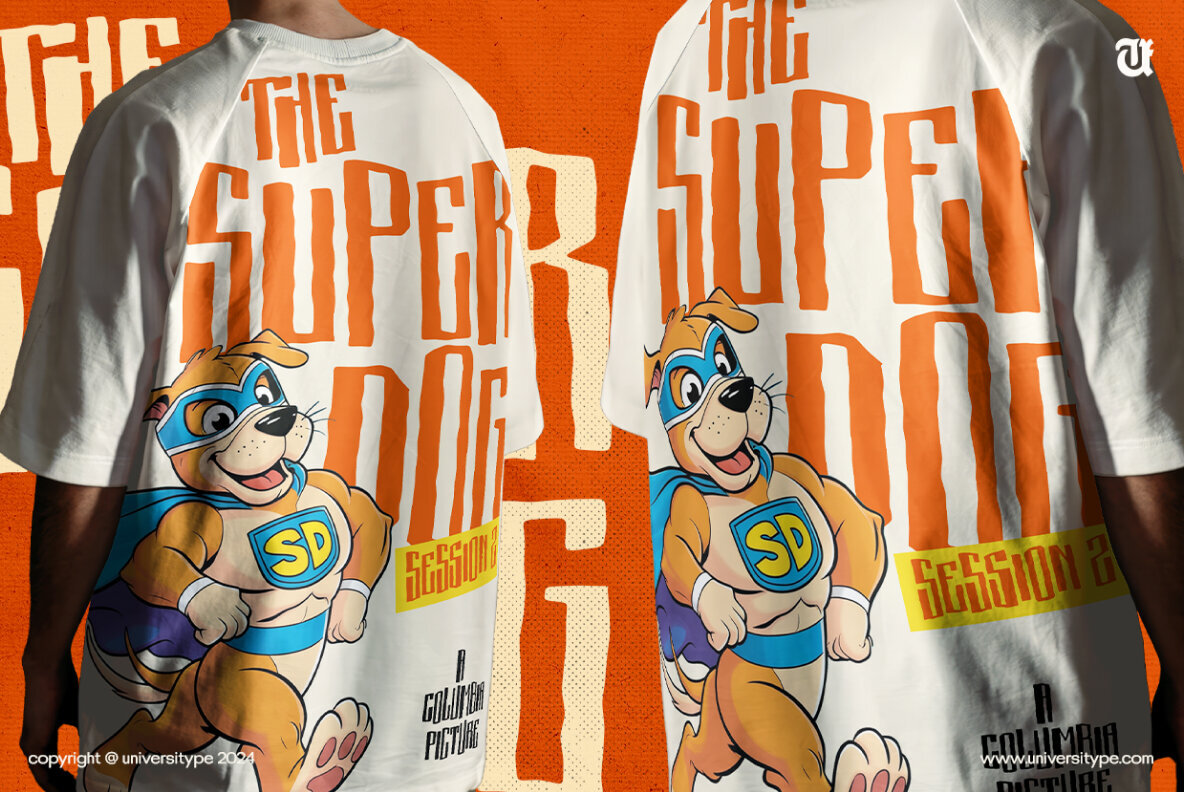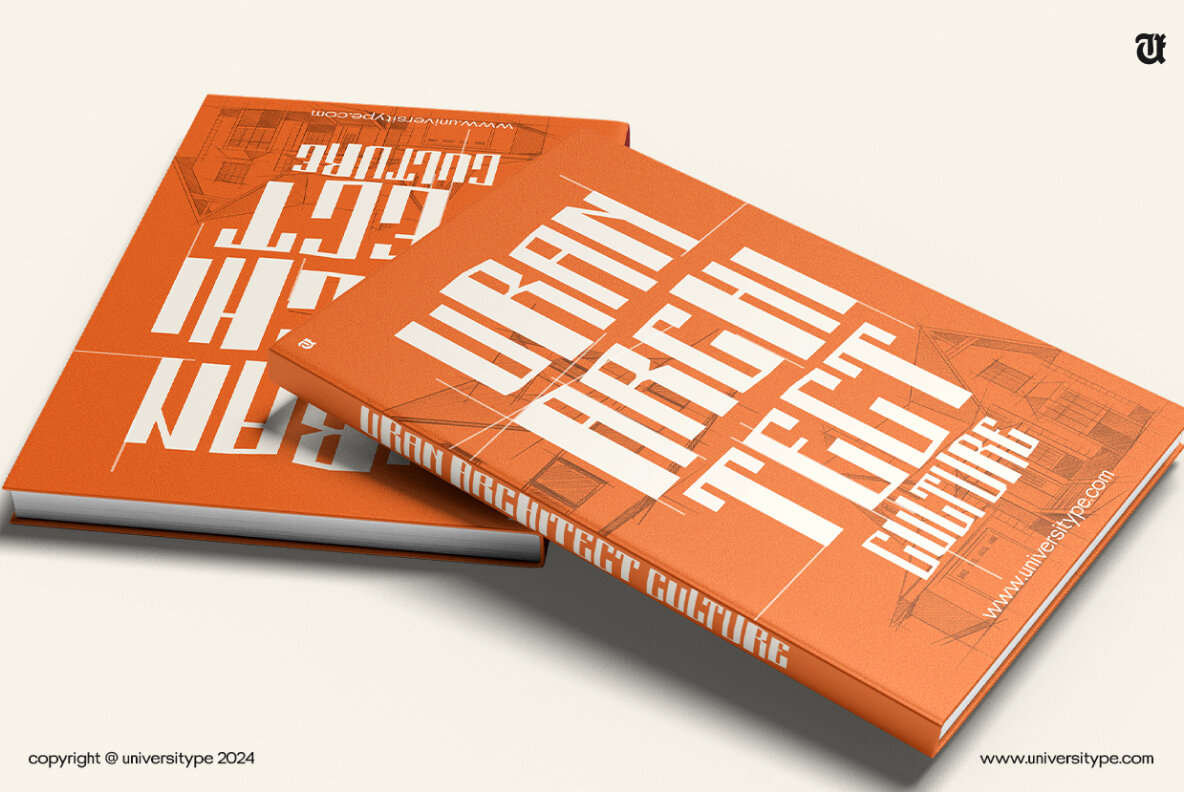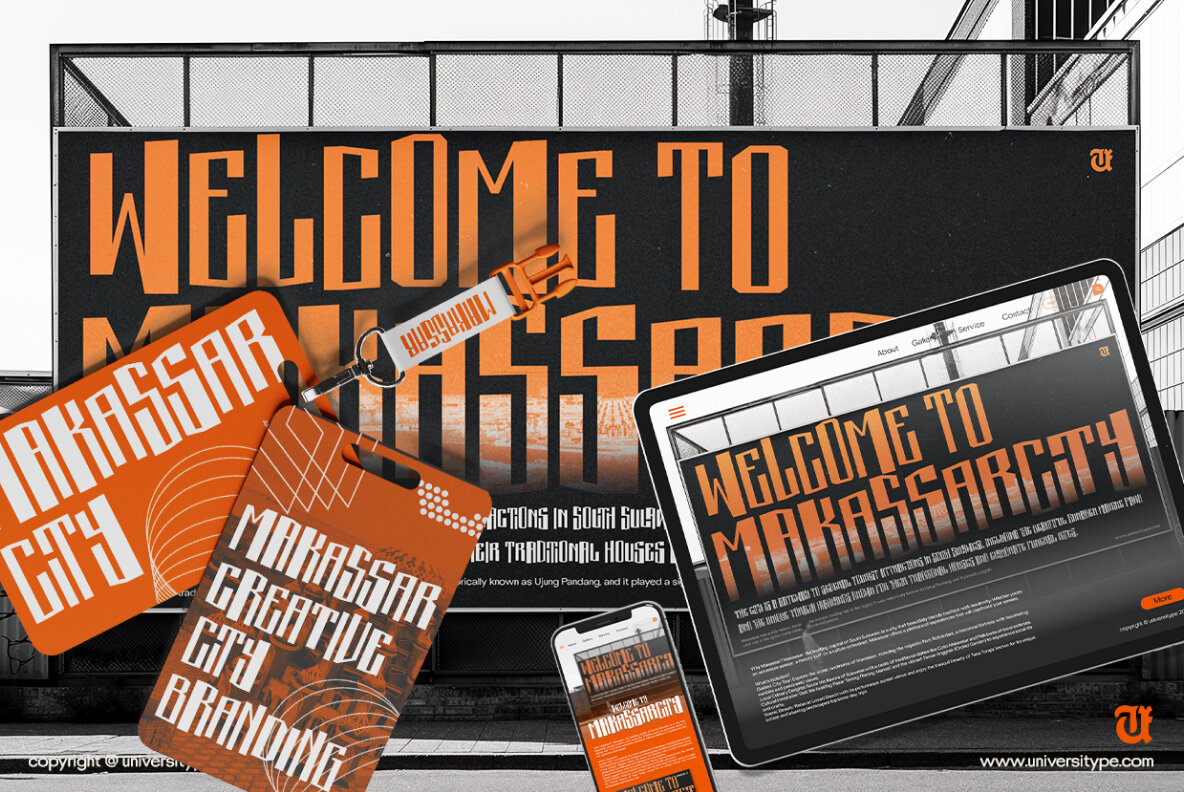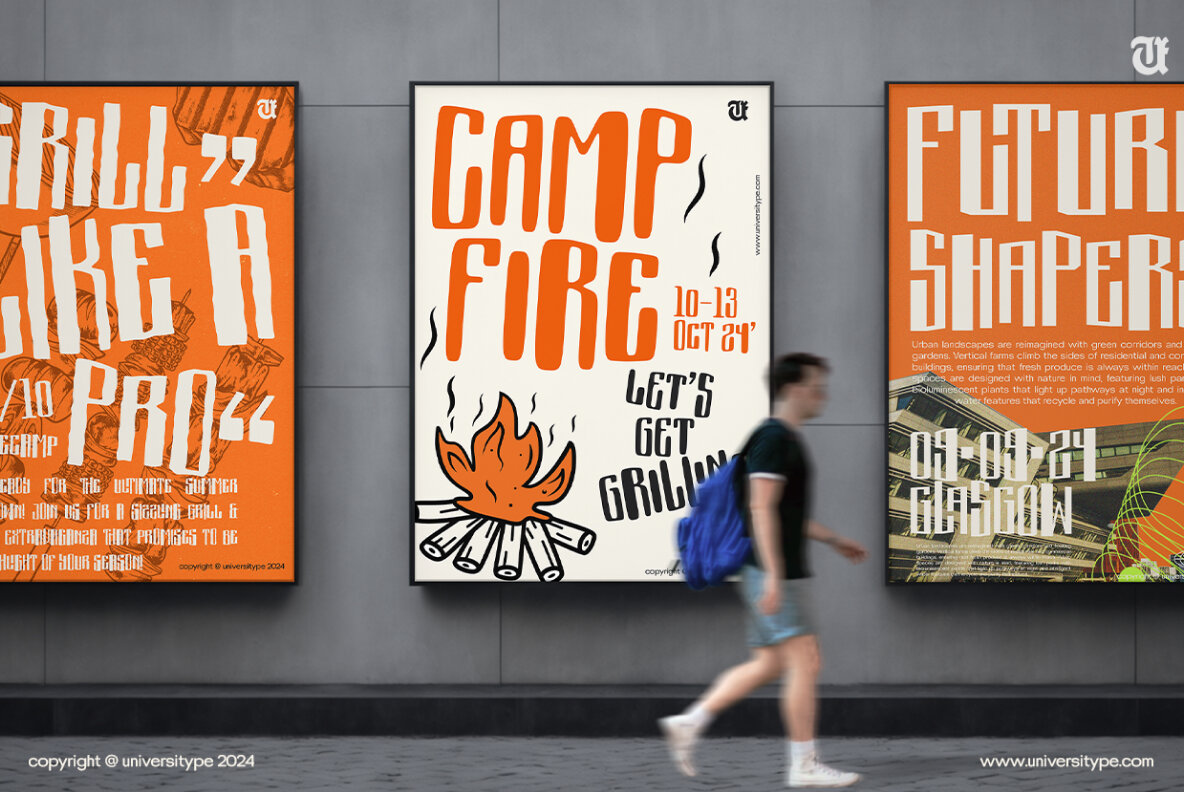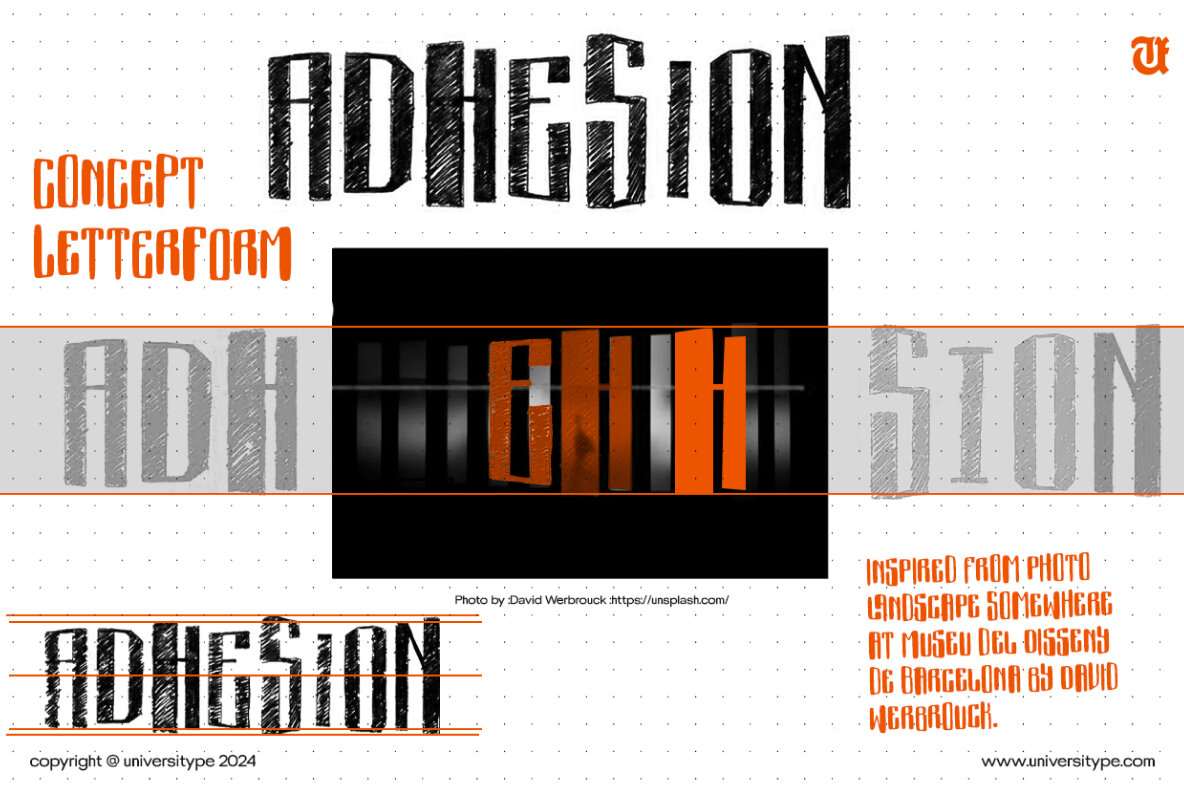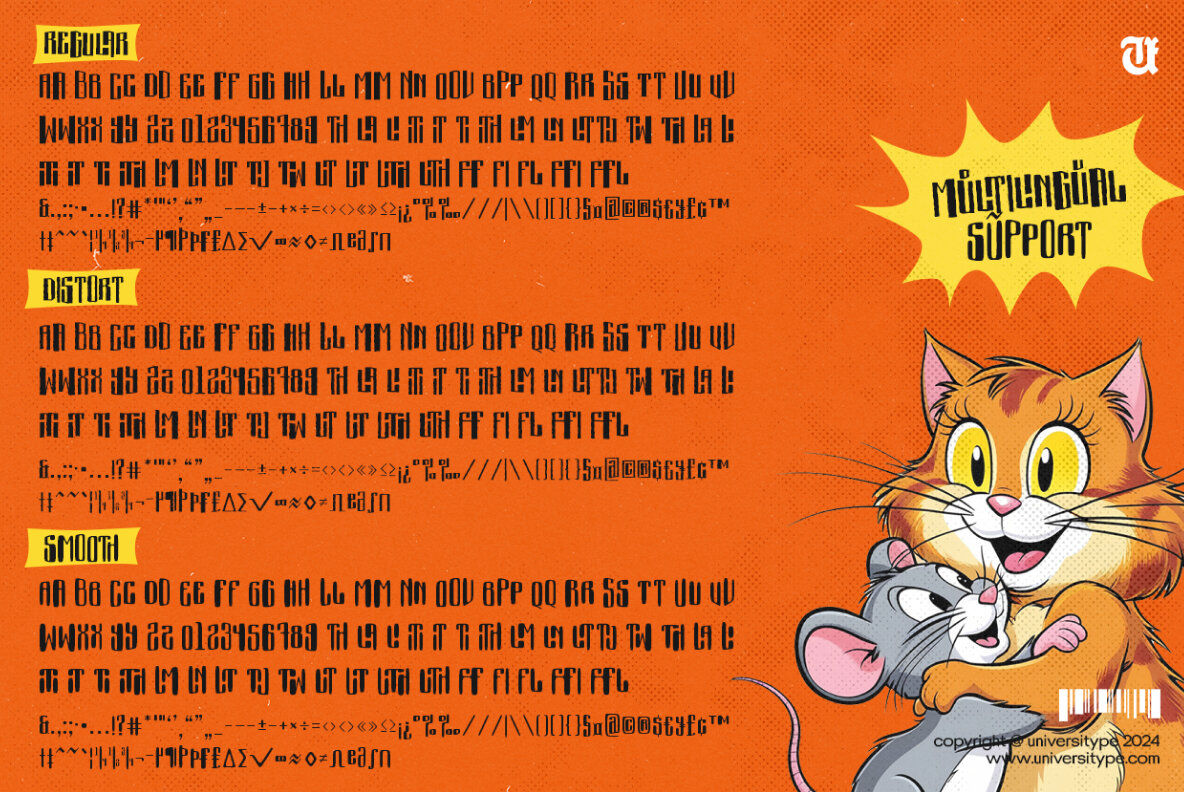
UT Disseny Font
UT Disseny Regular
UT Disseny Distort
UT Disseny Smooth
UT Disseny is a modern, architectural-inspired typeface that captures the essence of Barcelona’s renowned Museu del Disseny. Its design philosophy revolves around precision, structural beauty, and the interplay of geometric forms, making it an ideal choice for designers who seek bold yet elegant typographic expression. Key attributes of UT Disseny include its sleek lines, versatile styles, and a distinct nod to architectural elements, resulting in a font that is both contemporary and timeless. As you explore UT Disseny, you’ll notice how its letterforms echo the sharp lines and fluid curves of architectural design. Classified as a sans-serif display font, it embraces a modern, minimalist aesthetic. Its clean, geometric forms are softened by subtle, deliberate curves, much like the harmonious balance between steel and stone seen in Barcelona’s most famous buildings. The Distort variation adds a playful twist to the original design, evoking the idea of movement and change – as if the very walls of the museum were shifting under the weight of time. Meanwhile, the Smooth variation rounds out the font’s sharpness, bringing a polished, organic feel reminiscent of the smooth textures found in the museum’s interior spaces. UT Disseny comes in three distinctive variations: These variations allow designers to experiment with different moods and applications. UT Disseny is ideal for a wide range of design projects, including: It performs exceptionally well across print and digital media, offering flexibility for various creative projects. UT Disseny also supports multiple languages and includes special characters for added versatility. Technical Specifications